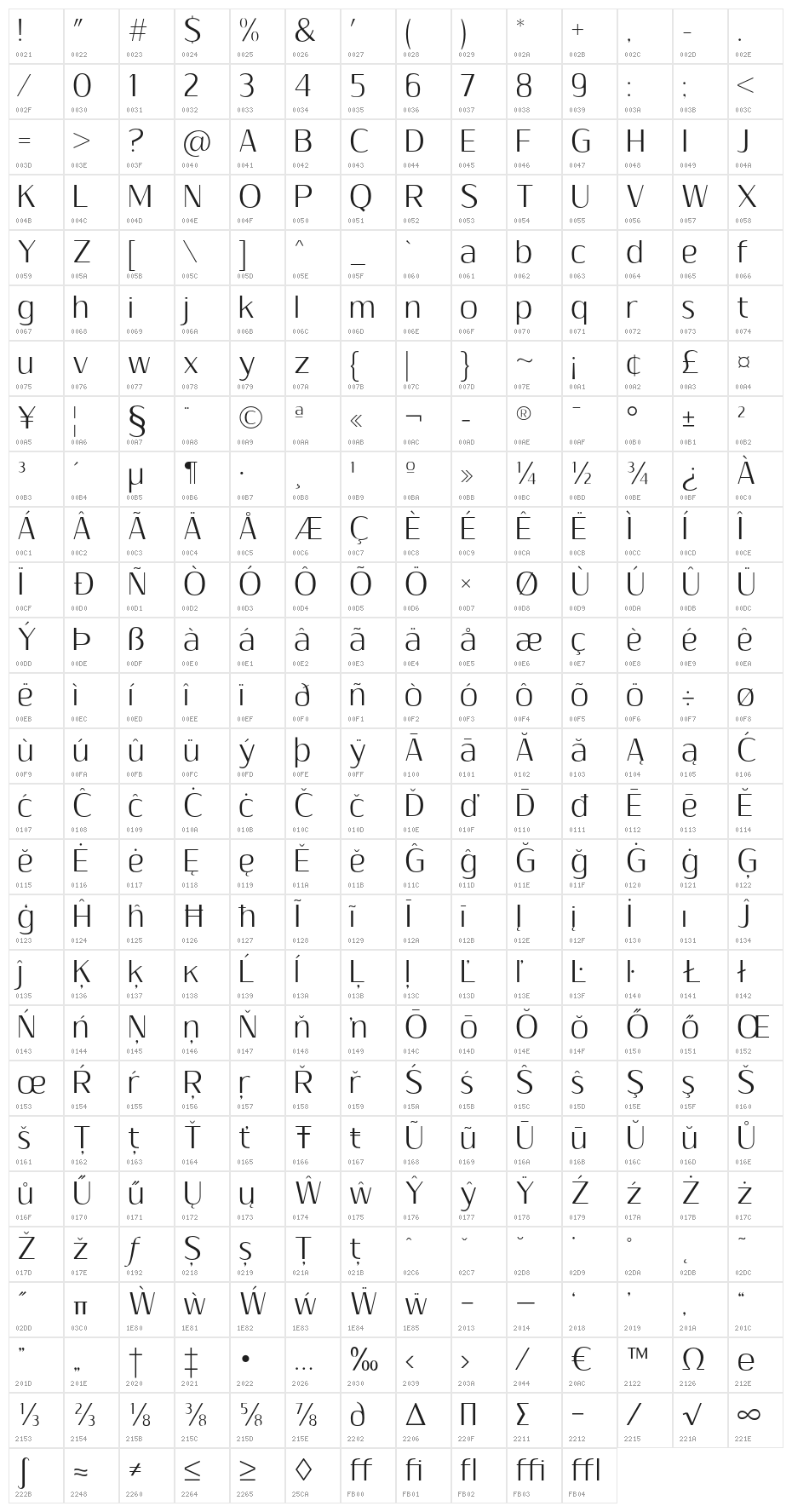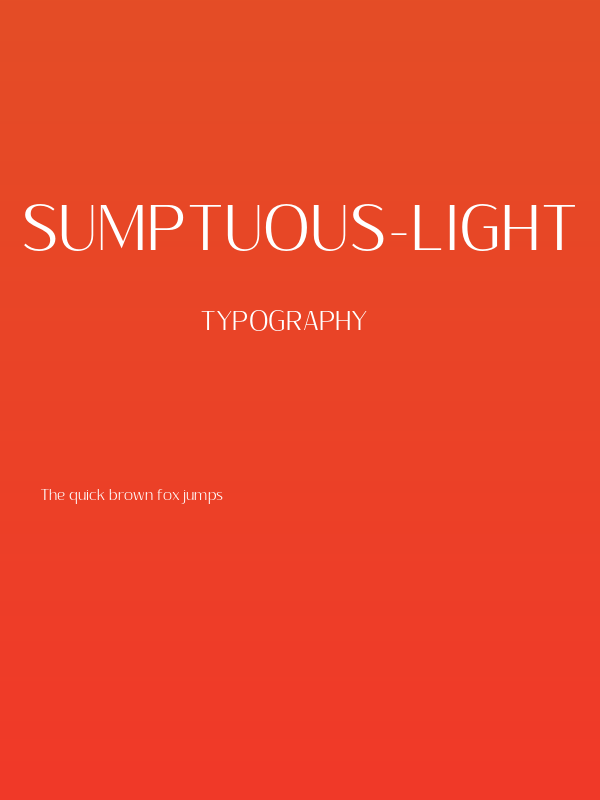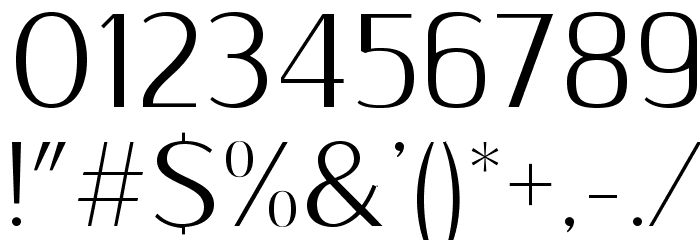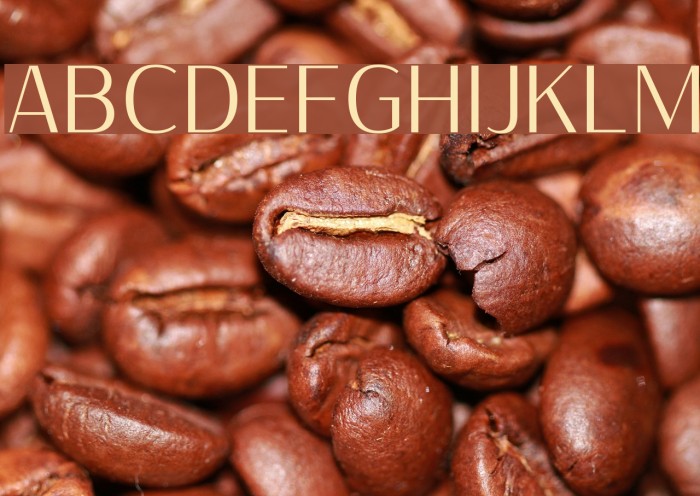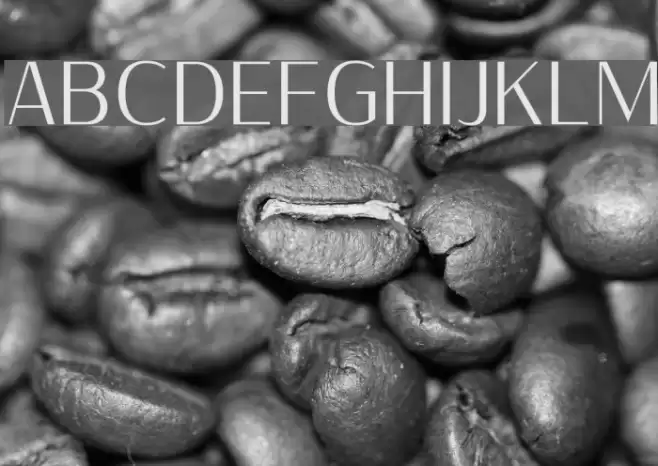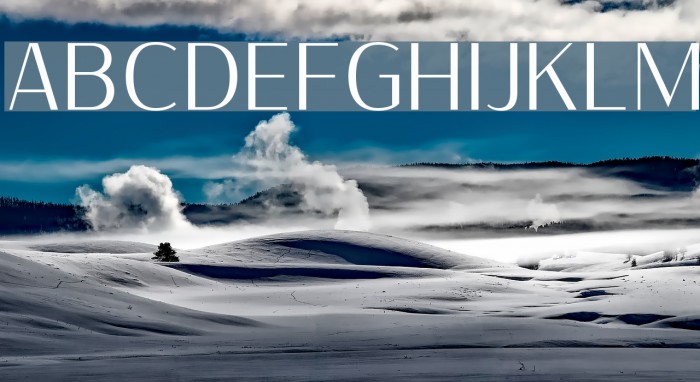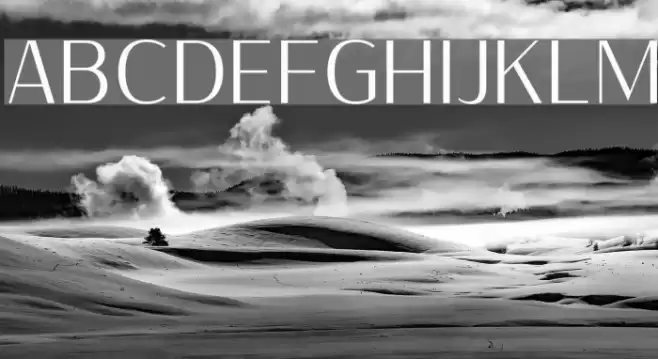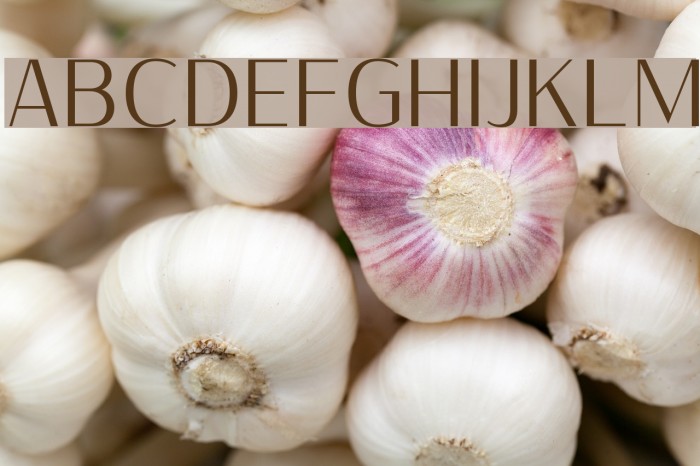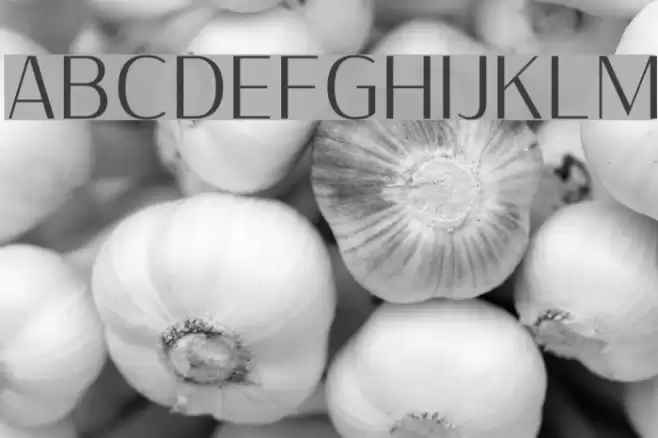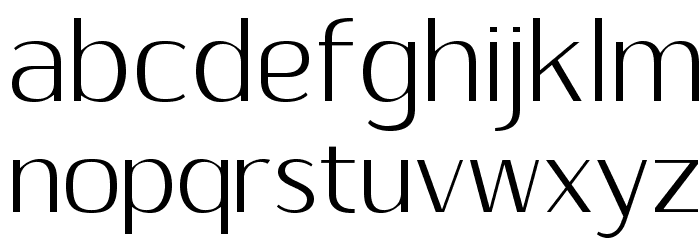
Sumptuous-Light Font
Sumptuous-Light Description
This font exhibits a sleek and modern aesthetic with clean lines and a light weight. The characters are well-proportioned, offering a sense of elegance and sophistication. The uppercase letters are tall and commanding, while the lowercase letters maintain a consistent flow, contributing to its readability. The numerals are clear and distinct, making them suitable for a variety of applications. The special characters are designed with precision, enhancing the font's versatility. Overall, this font's minimalist design makes it ideal for contemporary projects.
| Use Case | Headlines, Body text, Logos |
| Proposed Projects | Ideal for branding, editorial design, websites, and advertising materials where a modern and elegant look is desired. |